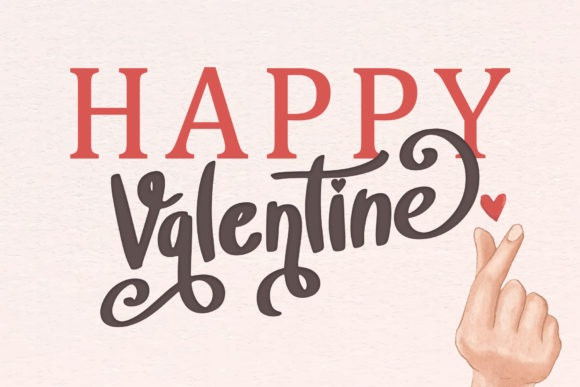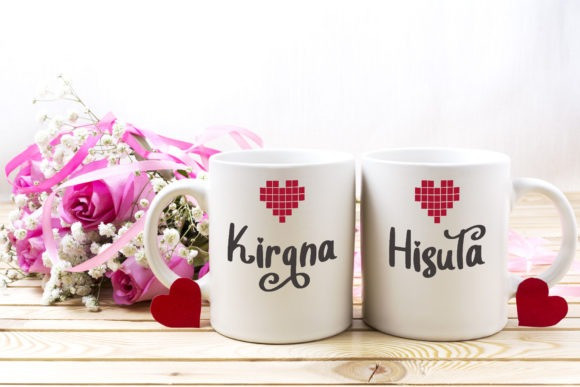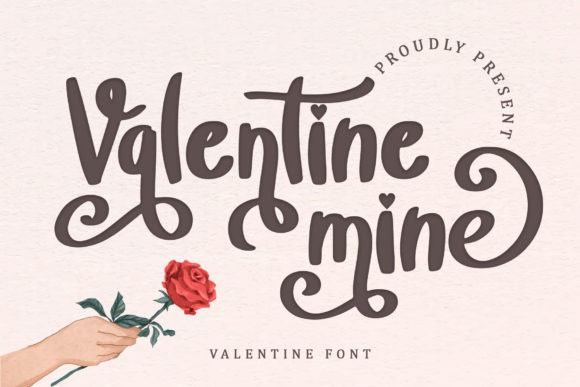
Valentine Mine Font
Valentine Mine Font is a lovely handwritten font inspired by the upcoming Valentine’s Day. Due to its versatile shape and form, this font is perfectly suitable for a wide range of designs. Add it to each of your creative projects, and it will give them a romantic and outstanding handwritten touch!